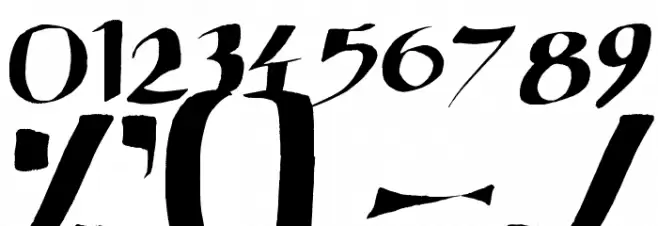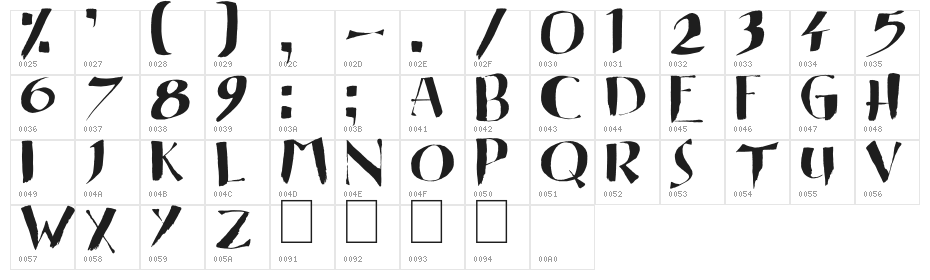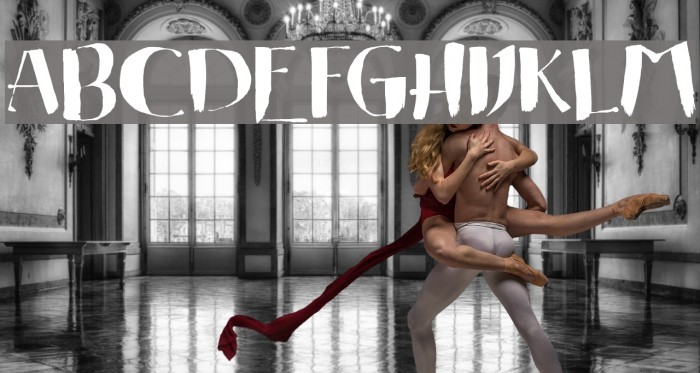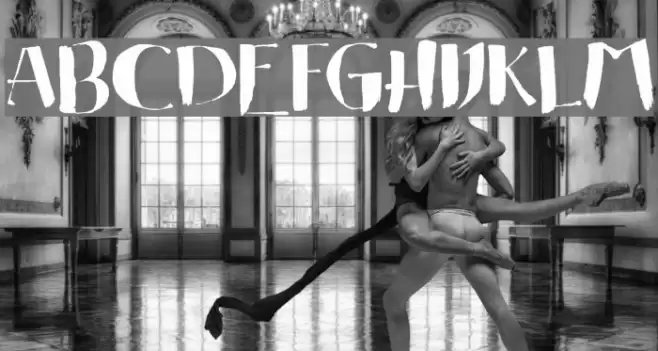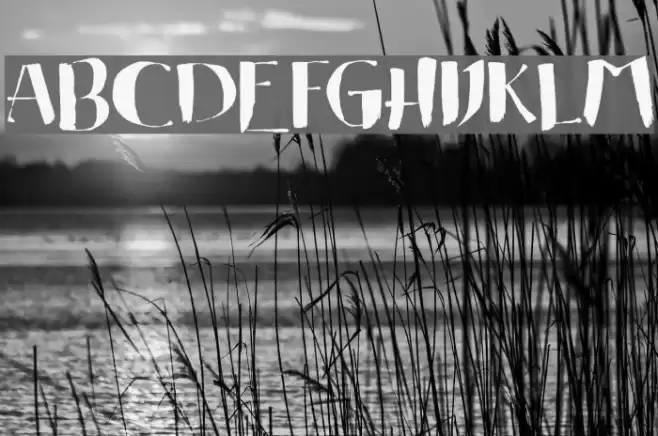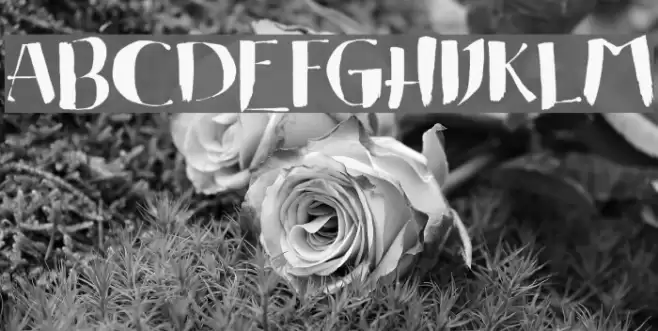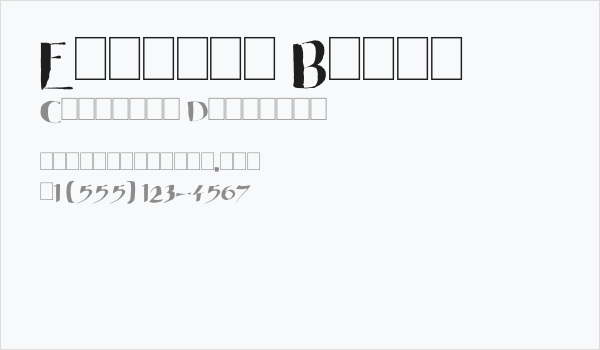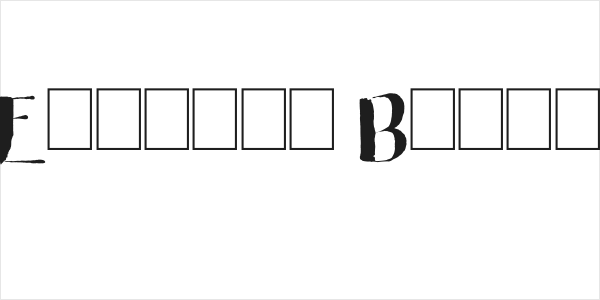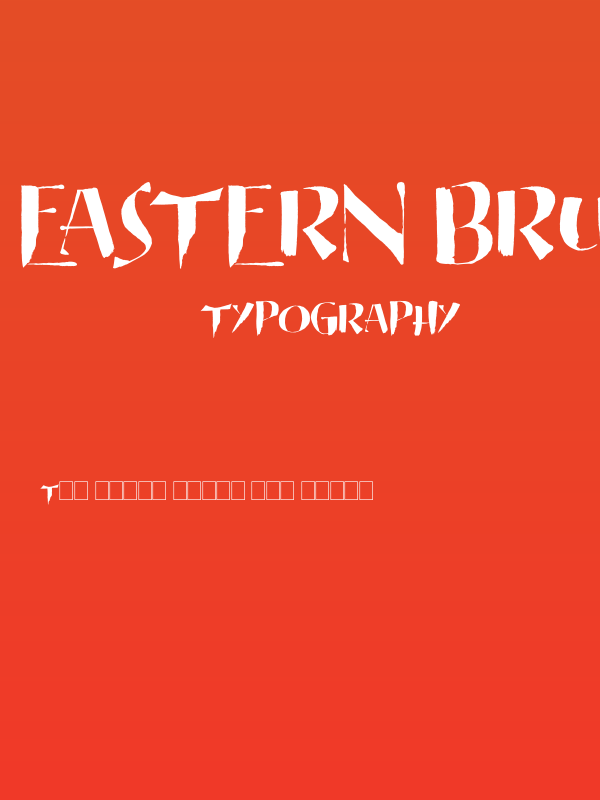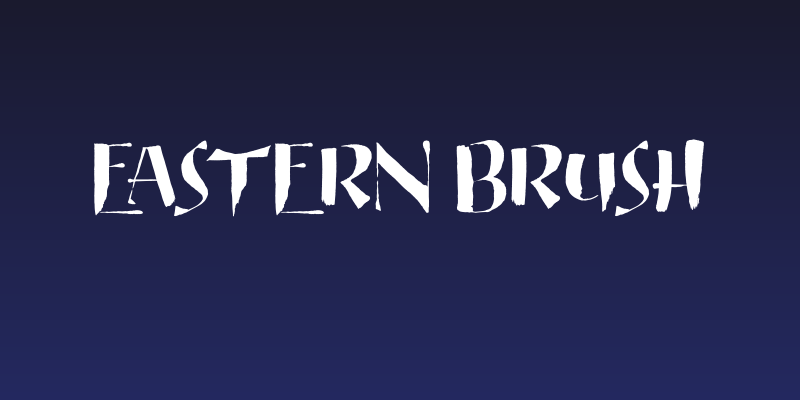
Eastern Brush Font
Eastern Brush Description
This font exudes a dynamic and artistic flair, reminiscent of traditional brush strokes. The characters are bold and expressive, with varying thickness that adds a sense of movement and energy. The uppercase and lowercase letters maintain a consistent style, with sharp angles and fluid curves that mimic the natural flow of a brush. The numbers and special characters follow the same aesthetic, ensuring a cohesive look across all text. This font is ideal for projects that require a touch of creativity and cultural richness.
| Proposed Projects | Perfect for artistic projects, cultural event posters, branding for creative industries, and any design needing an energetic and unique touch. |